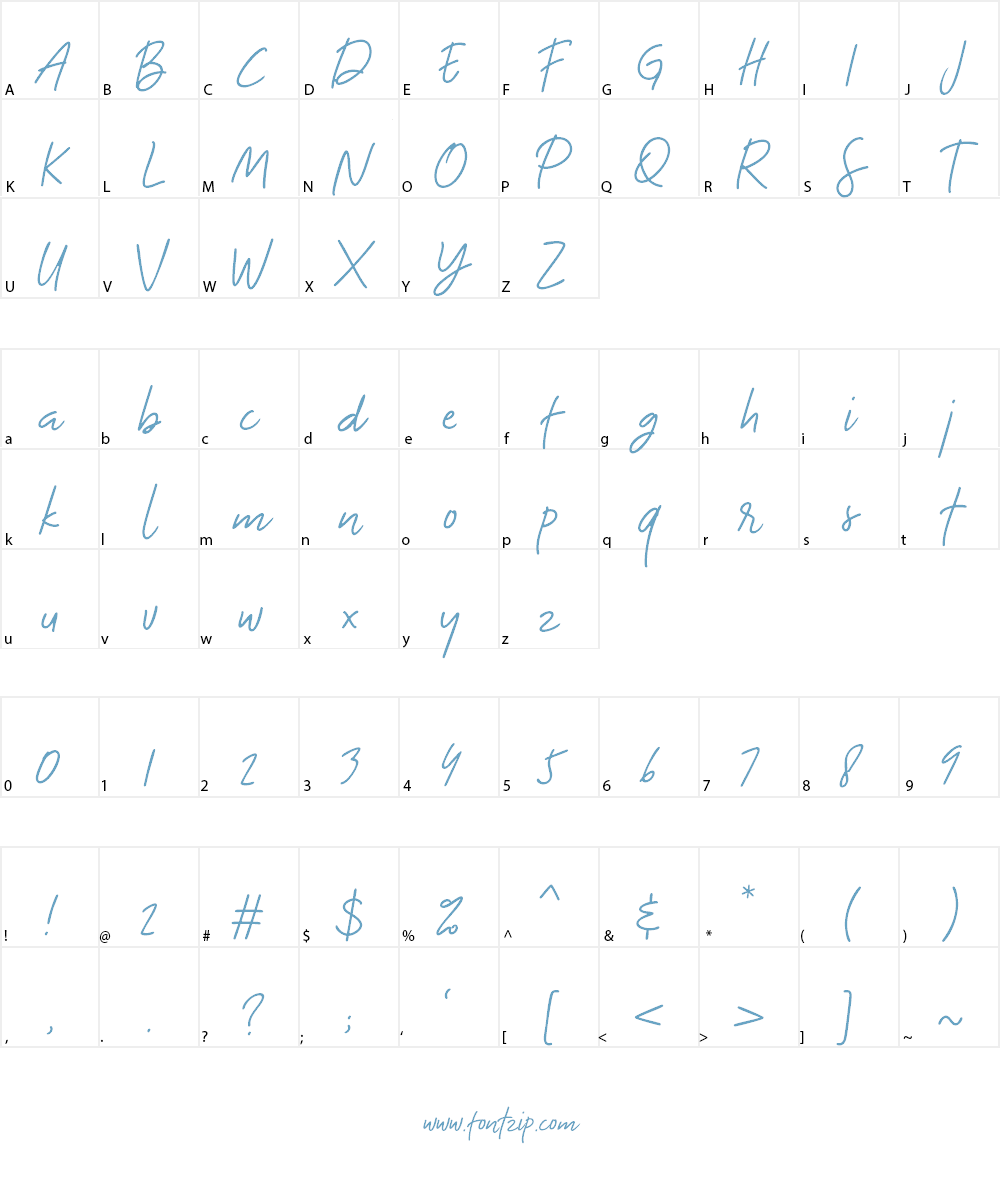
Full version has 70 pairs of ligatures, swashes, and special features that make your words look organic and authentic, just like the natural handwriting.